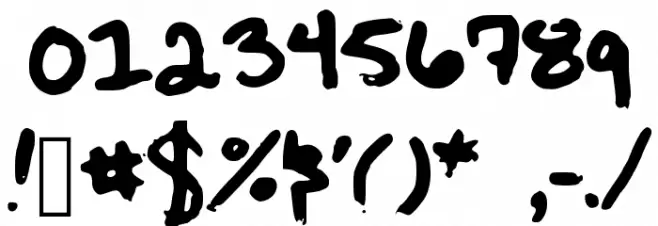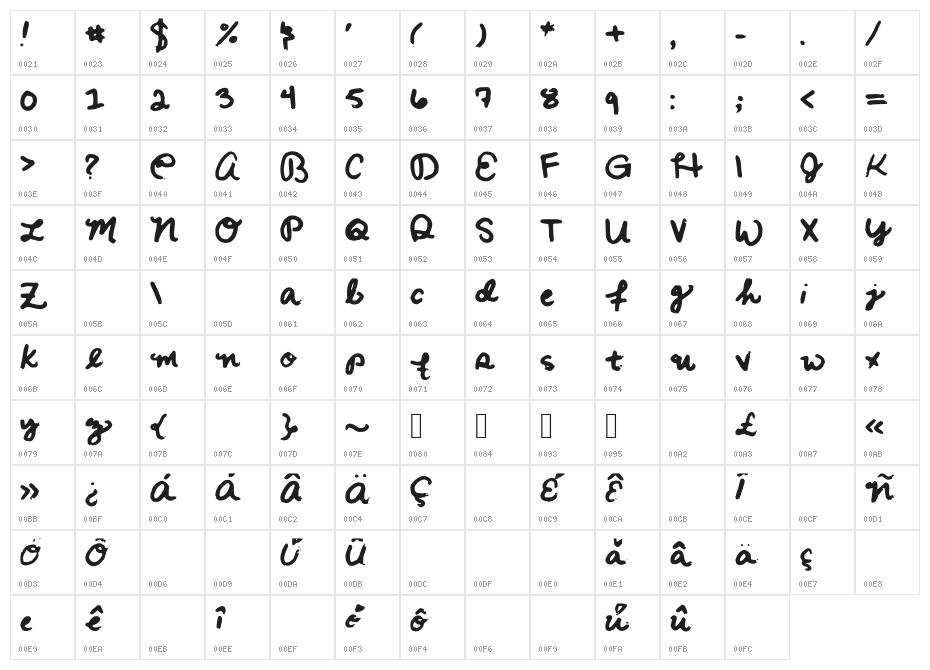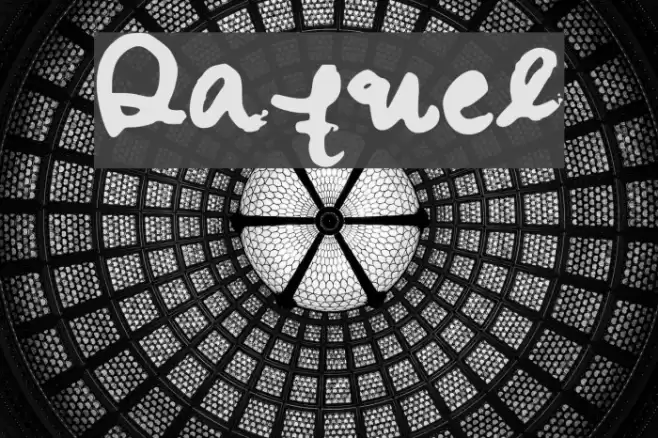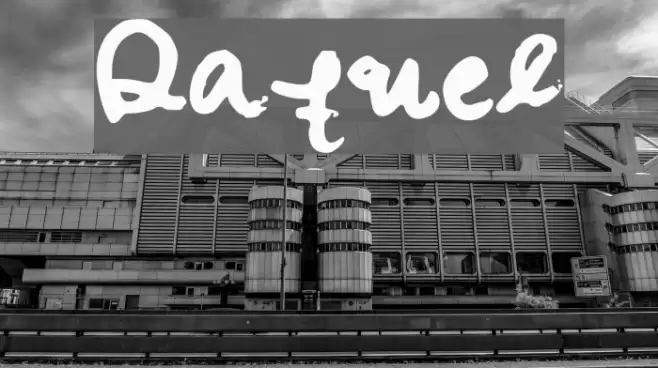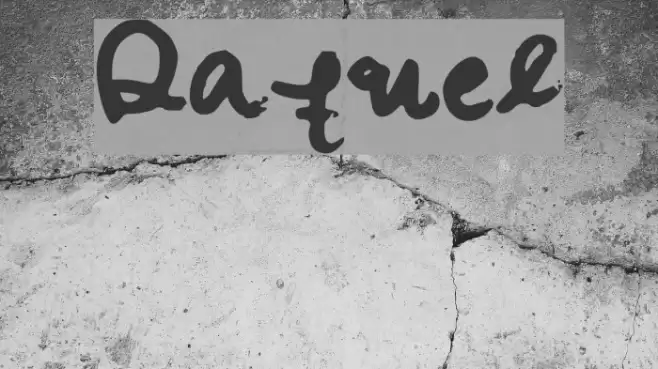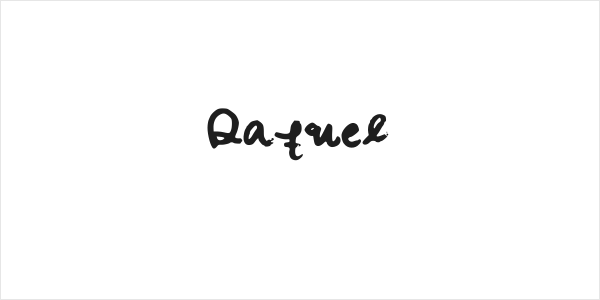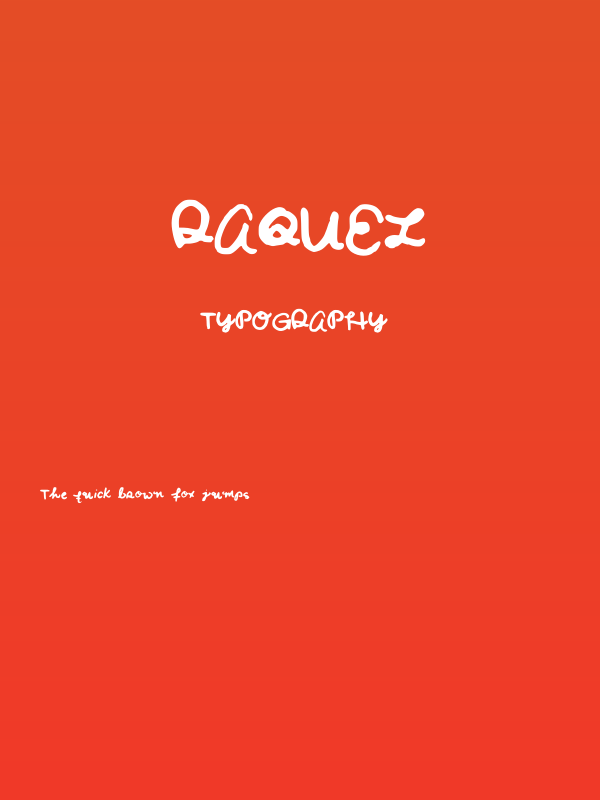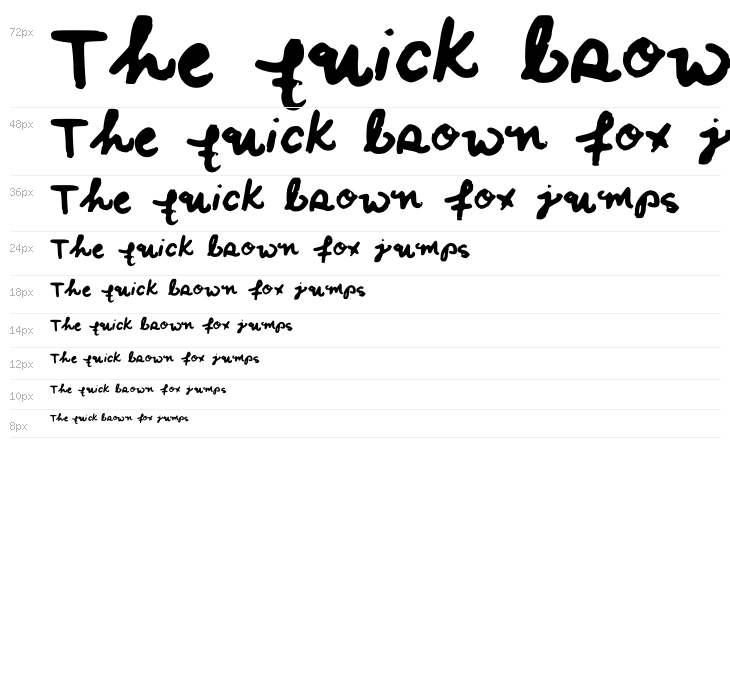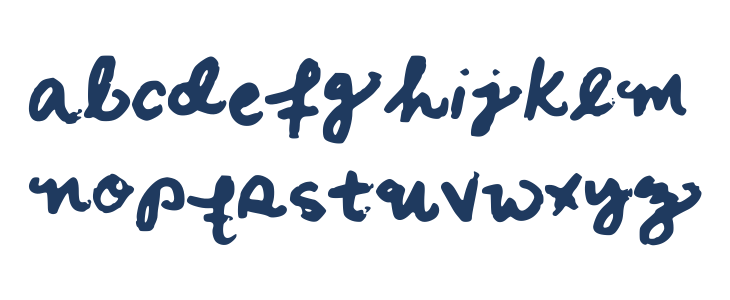
Raquel Font
Raquel Description
This font features a bold, expressive handwritten style with a playful and dynamic appearance. The characters are crafted with a fluid, cursive touch, giving them a lively and informal feel. The strokes are thick and consistent, providing a strong visual impact. The uppercase and lowercase letters maintain a cohesive look, with some characters exhibiting unique flourishes and loops. Numbers and special characters follow the same energetic style, making the font versatile for various creative applications.
| Proposed Projects | Ideal for greeting cards, invitations, posters, and branding projects that require a personal and lively touch. |